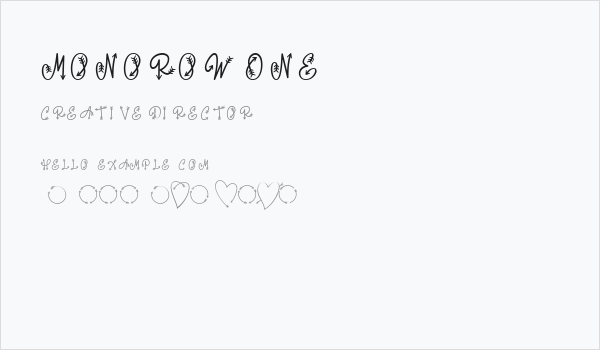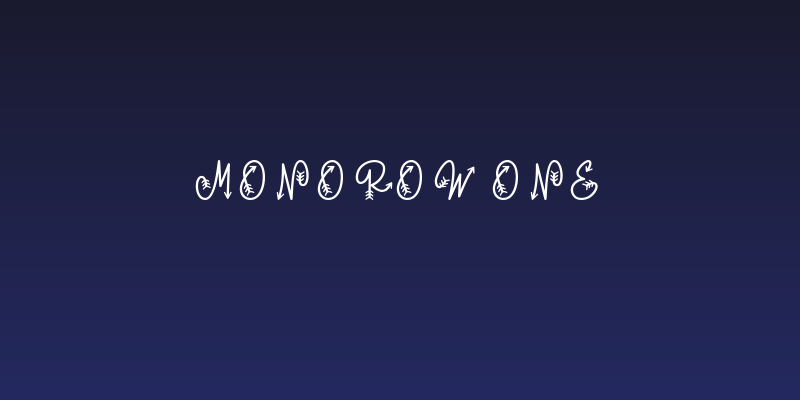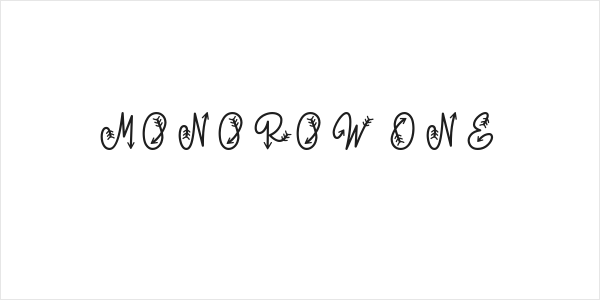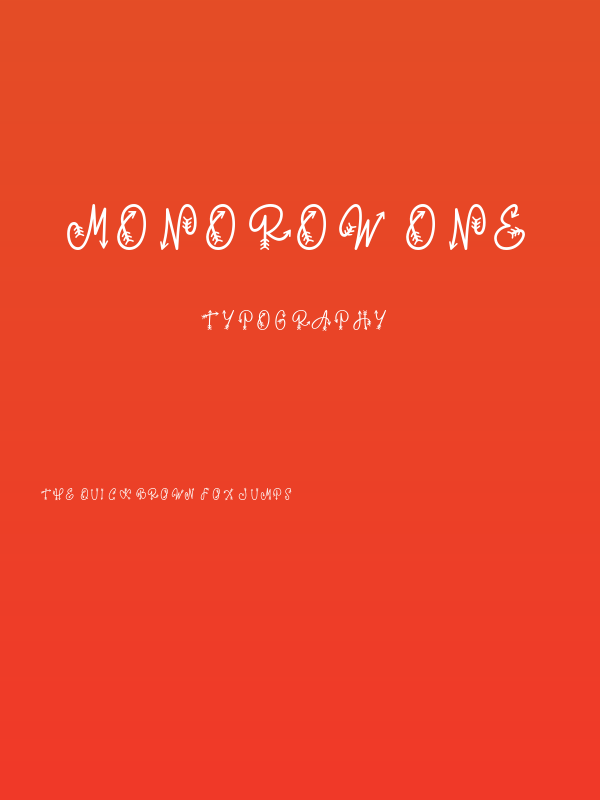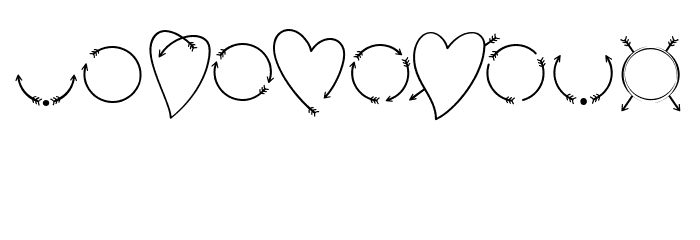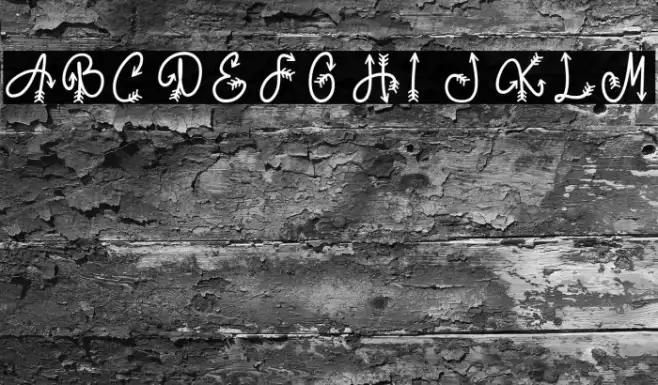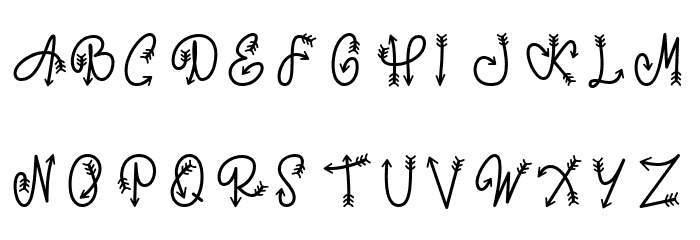
Monorow One Font
Monorow One Description
This font features a whimsical and decorative style, incorporating arrow motifs into the strokes of each character. The uppercase and lowercase letters share a consistent design, with playful curves and pointed arrowheads that add a unique flair. The numerals and special characters also follow this theme, making the font cohesive and visually interesting. Its artistic nature makes it suitable for creative projects where a touch of personality is desired.
| Proposed Projects | Ideal for greeting cards, invitations, posters, and creative branding projects. |